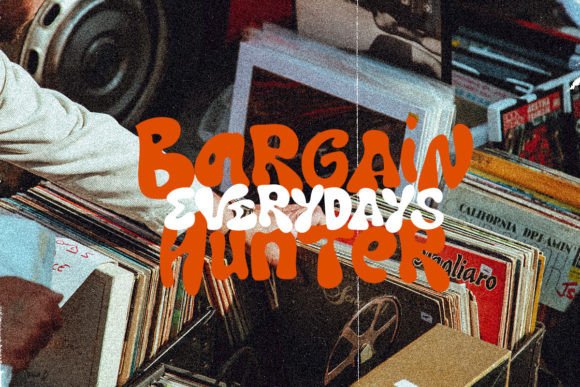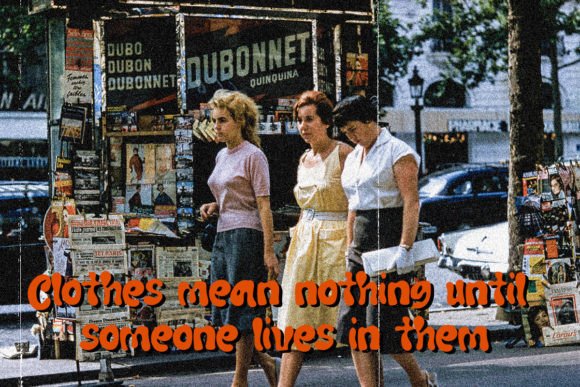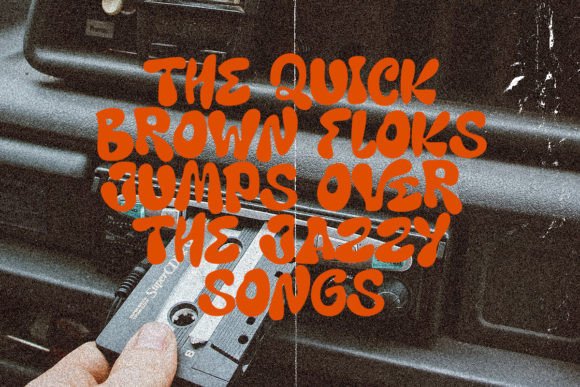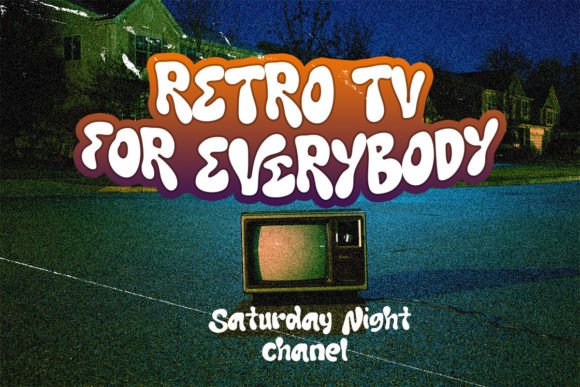
Introduction to Shoshine Font
As a designer, you know the thrill of that perfect creative moment when everything comes together – the colors, the typography, the mood. For me, it was the discovery of the Shoshine Font, and I just had to dive in. This stunning font has been making waves in the design community with its spontaneous curves and youthful spirit, reminiscent of the vibrant fashion street style.
What sets Shoshine Font apart is its unique blend of free-spirited artistry and high-quality design. With its PUA encoding, you can unlock a treasure trove of glyphs and ligatures, making it the perfect resource for any creative project. Whether you’re working on a graphic design, a digital artwork, or a social media campaign, Shoshine Font is sure to add that extra oomph to your design.
Key Features of Shoshine Font
- Unique characteristics include a modern, sleek aesthetic and a wide range of customization options.
- Perfect for use in graphic design, digital art, and other creative projects where a high-quality font is required.
Honest Review: Shoshine Font
I recently came across the Shoshine Font, and I was excited to give it a try in my creative project. Overall, I was impressed with the quality and design of this font. ✨
- High quality design: The Shoshine Font has a unique and elegant design that makes it perfect for creative projects.
- ⚠️ Limited font styles: The Shoshine Font only comes in a few font styles, which might limit its versatility.
- ⚠️ Not ideal for body text: The font’s design makes it more suitable for headings and titles rather than body text.
Overall, I think the Shoshine Font is a great design resource for designers who want a high-quality font for their creative projects. While it has some limitations, its unique design and transparent background make it a great choice for designers looking for a free download.
Shoshine Font is ideal for creative projects, such as graphic design, digital art, and typography. Use it in your next project to add a touch of elegance and sophistication.
Alternatives to Shoshine Font
Great Vibes is a high-quality, cursive script font ideal for creative projects that require a touch of elegance and sophistication. It’s perfect for invitations, wedding designs, and other romantic-themed projects.
Compared to Shoshine Font, Great Vibes has a more refined and delicate appearance, making it suitable for projects that require a softer, more romantic feel. Great Vibes is available for free download, making it an excellent alternative to Shoshine Font for designers looking for a high-quality, free design resource.
Carolyna Pro is a modern, elegant sans-serif font that’s perfect for a wide range of creative projects, from branding and marketing materials to digital products and websites. It features a clean and minimalist design, making it ideal for projects that require a professional and sophisticated look.